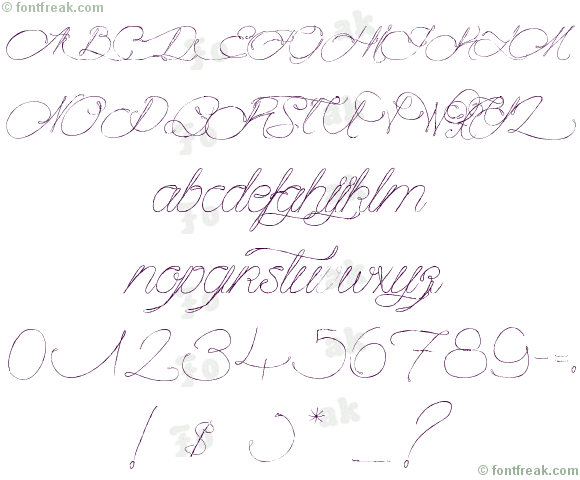
Mougatine
About Mougatine
Mougatine, designed by Maelle.K, is an exquisite script font that captures the essence of elegance and charm. This font features fluid, cursive strokes that create a graceful, flowing appearance, making it ideal for a variety of design applications. The stroke weight is consistent and delicate, providing a sophisticated contrast that enhances its visual appeal. The spacing between the characters is thoughtfully crafted, allowing for seamless readability while maintaining a stylish flair. Decorative elements, such as loops and swirls, add a whimsical touch, making this font truly unique.
Mougatine is perfect for several specific use cases. It shines in wedding invitations, where its romantic style can beautifully set the tone for a celebration of love. Additionally, it works wonderfully for boutique branding, allowing small business owners to convey a sense of elegance and creativity. Restaurant menus can benefit from this font as well, providing a touch of sophistication that complements upscale dining experiences. Furthermore, content creators can use it in social media graphics and promotional materials to grab attention and convey a personal touch.
What sets the Mougatine font apart is its ability to blend beauty and versatility seamlessly. It offers a distinctive style that can enhance any project, making it an essential addition to any designer's toolkit. For those seeking an elegant typeface, the Mougatine font free download provides an excellent opportunity to explore its charm.